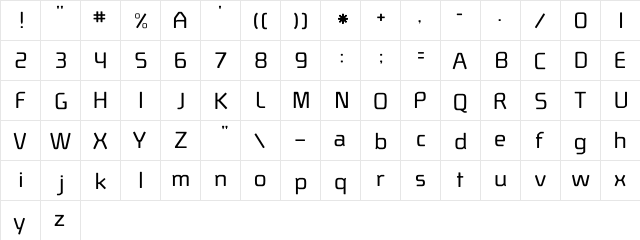
HamRadioWorking Regular
Design Context for HamRadioWorking Typeface
HamRadioWorking takes a measured approach to typography — its balanced proportions and neutral character make it a reliable workhorse for both digital and print work.